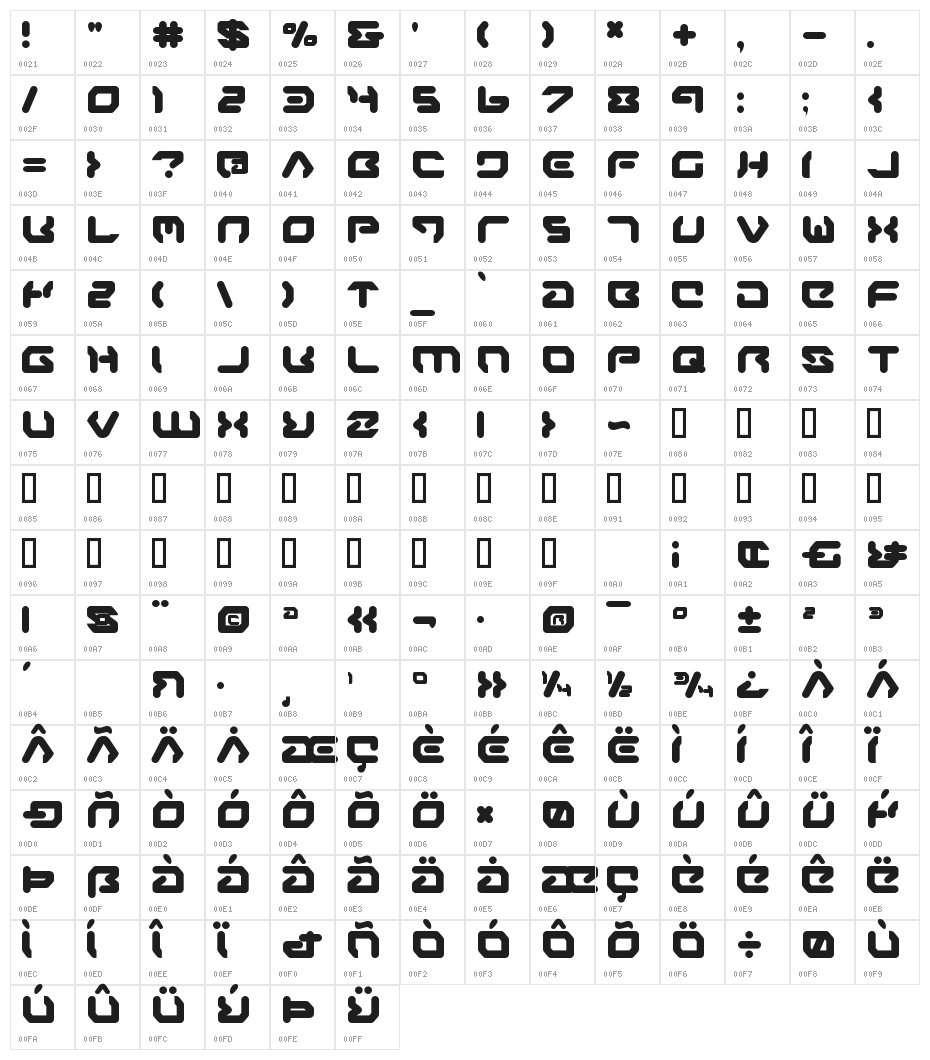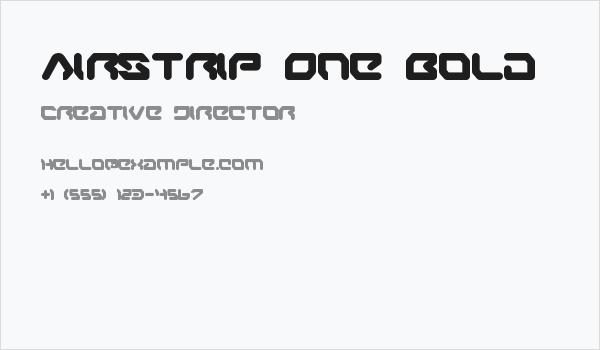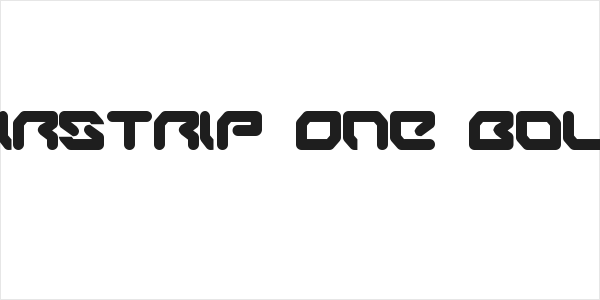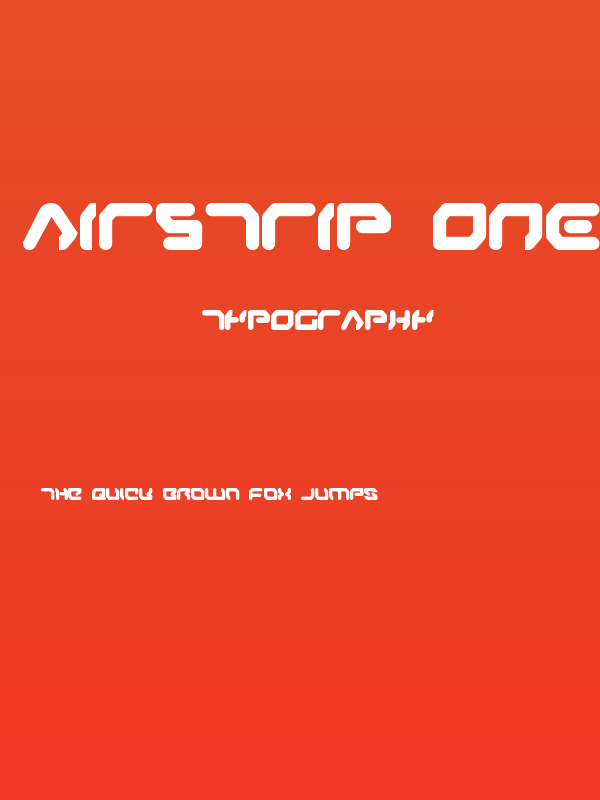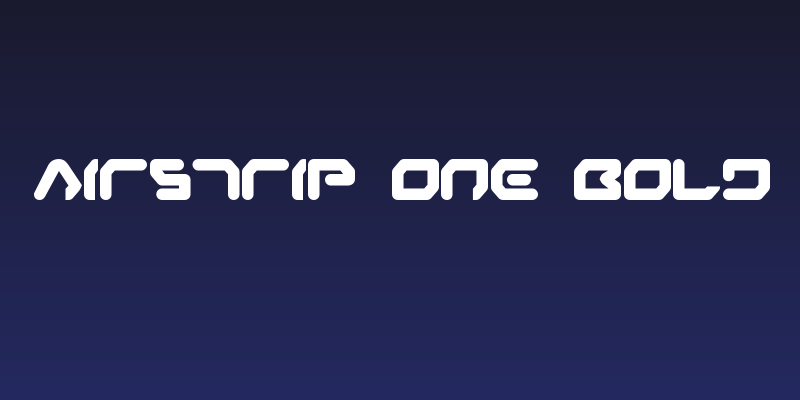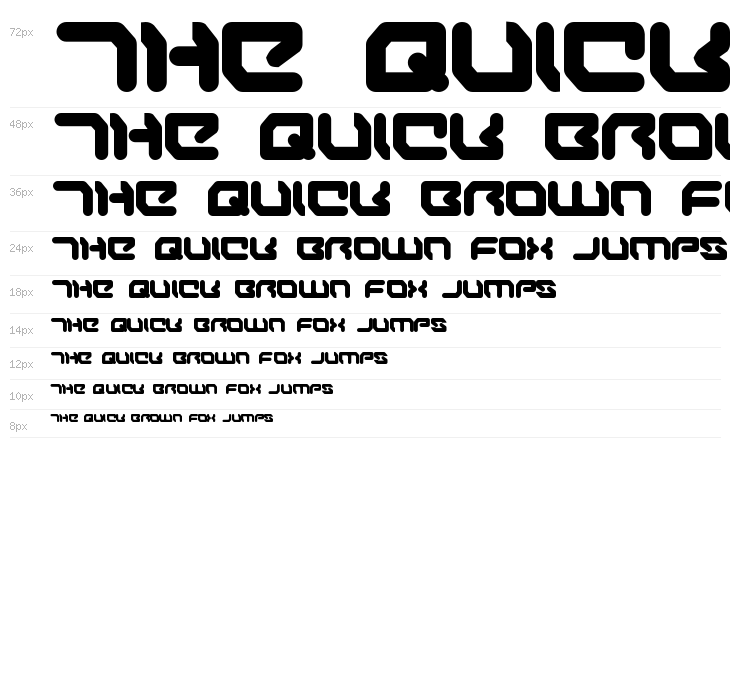
Airstrip One Bold Font
Airstrip One Bold Description
This font features a bold, futuristic design with a distinct geometric style. The characters are constructed with thick, rounded edges and a consistent stroke width, giving it a strong and impactful appearance. The uppercase and lowercase letters maintain a uniform height, enhancing its modern aesthetic. The numerals and special characters are designed to match the boldness of the alphabet, ensuring a cohesive look across all glyphs. The font's unique style makes it suitable for projects that require a contemporary and edgy feel.
| Proposed Projects | Ideal for sci-fi themed designs, video game graphics, tech branding, and modern posters. |